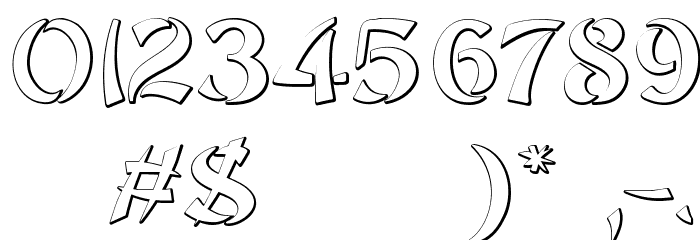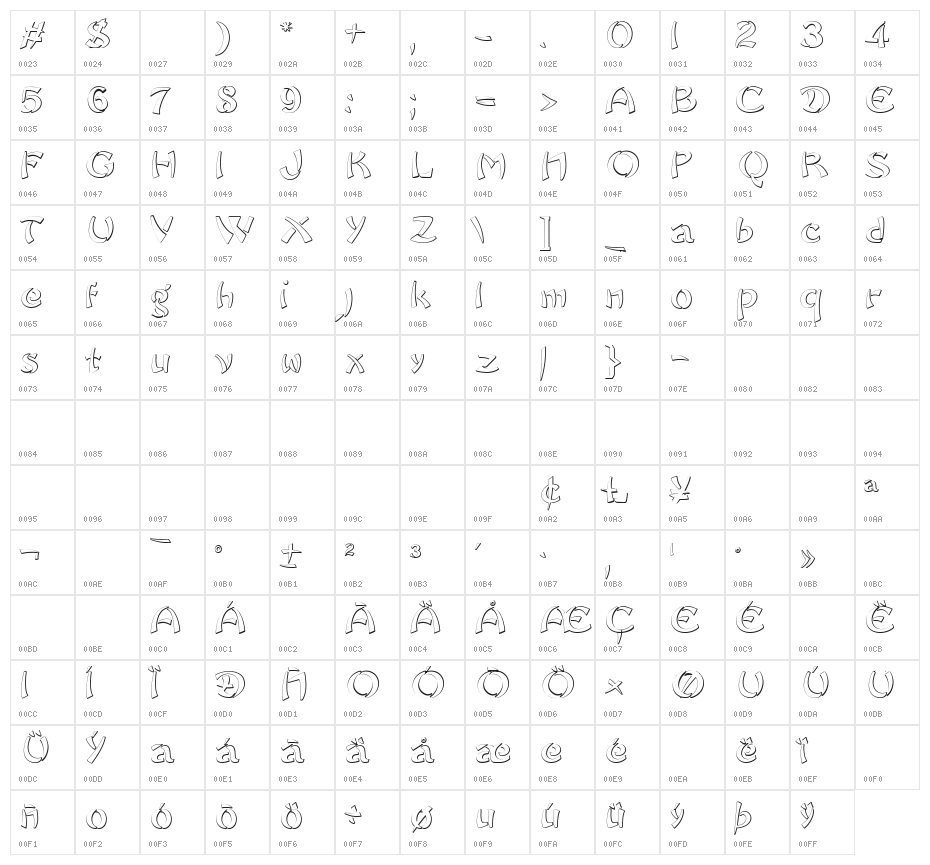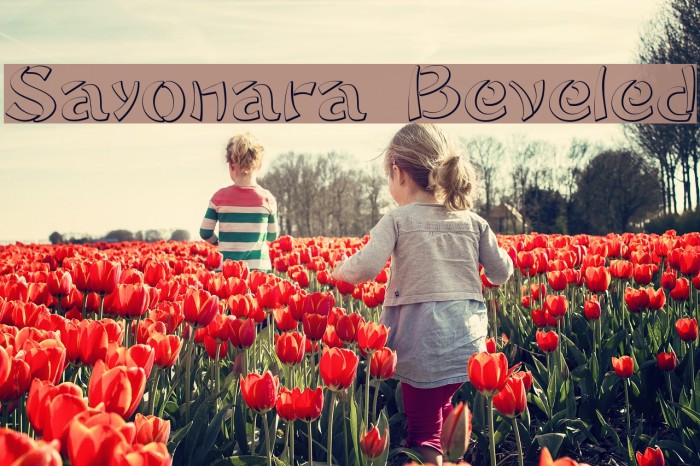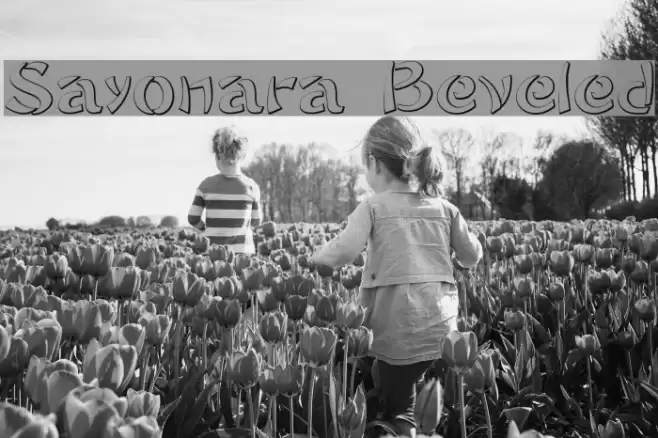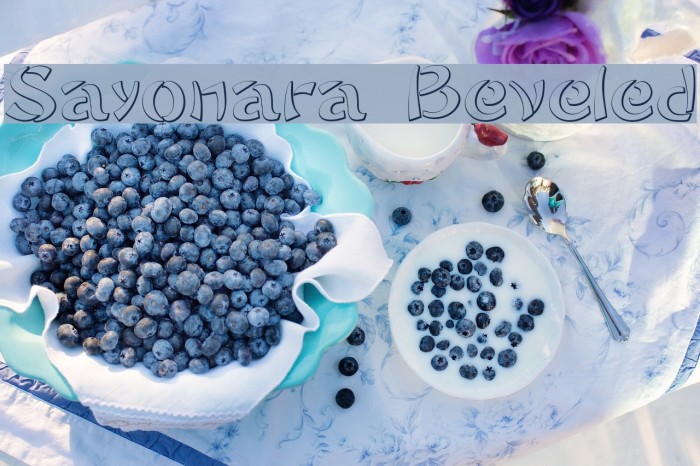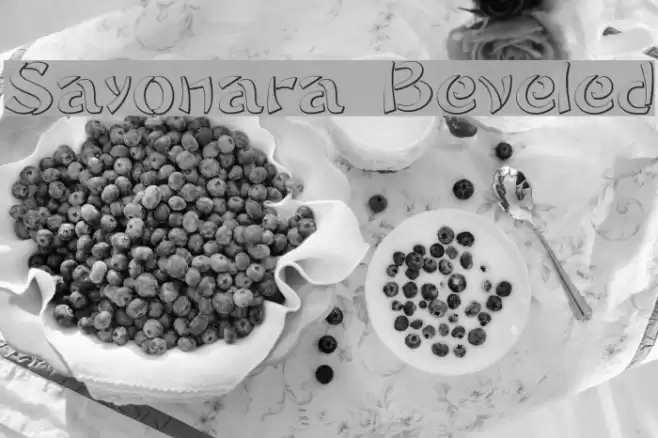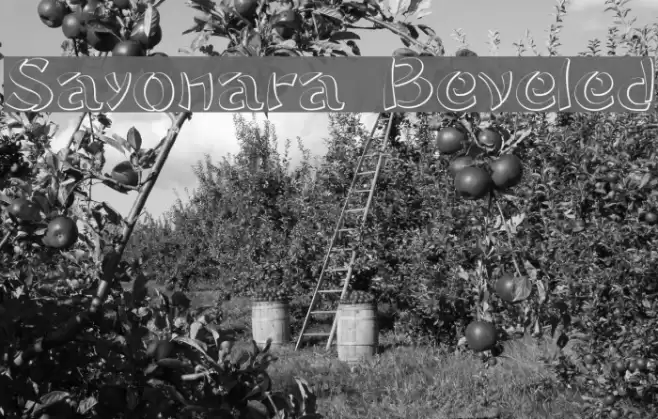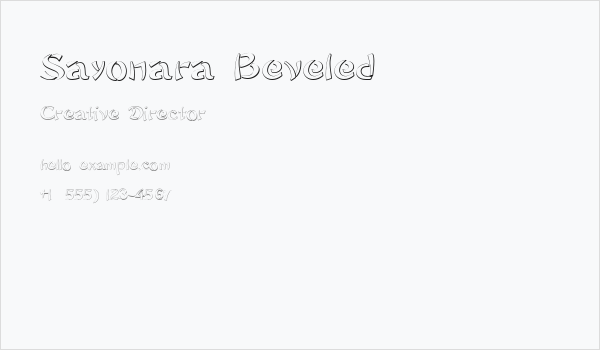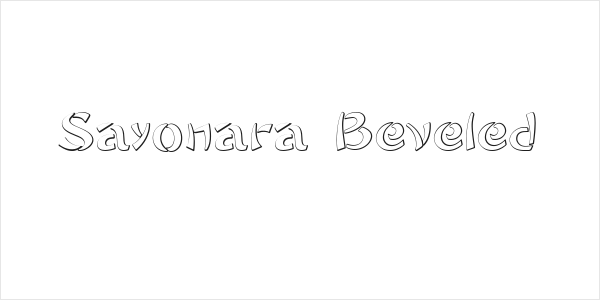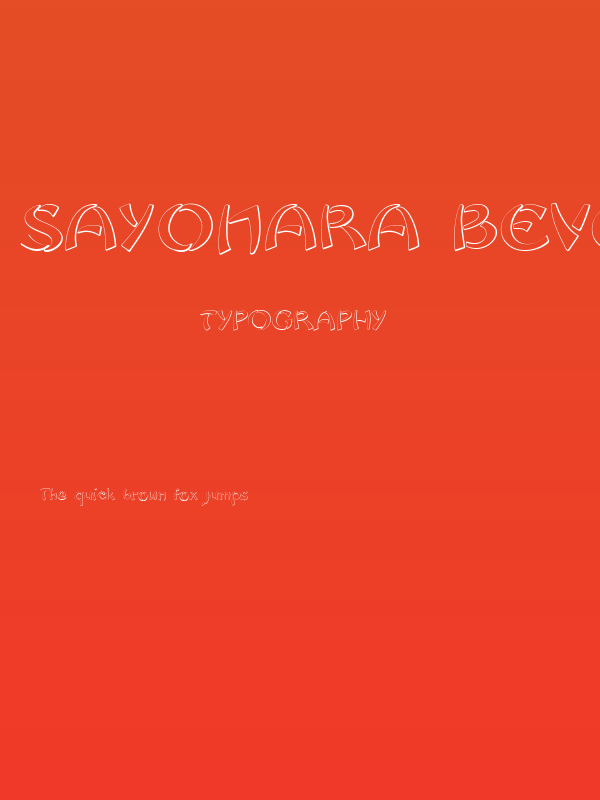
Sayonara Beveled Font
Sayonara Beveled Description
This font features a distinctive beveled style, giving each character a three-dimensional appearance. The uppercase and lowercase letters have a playful, dynamic form, with exaggerated curves and angles that create a sense of movement. The numbers and special characters maintain this unique style, ensuring consistency across all glyphs. The font's bold outlines and shadowing effects enhance its visual impact, making it stand out in any design. Its artistic flair and decorative elements make it suitable for creative projects that require a touch of whimsy and originality.
| Proposed Projects | Ideal for posters, logos, headlines, and any design needing a bold, artistic touch. |